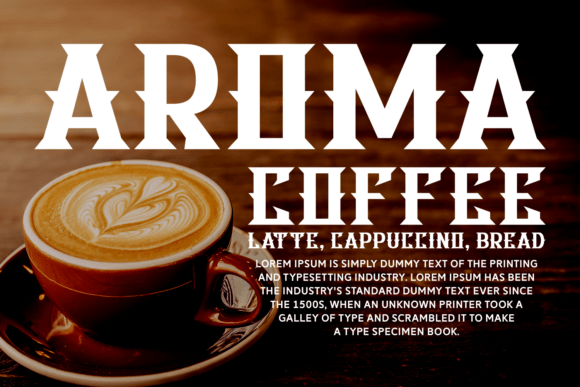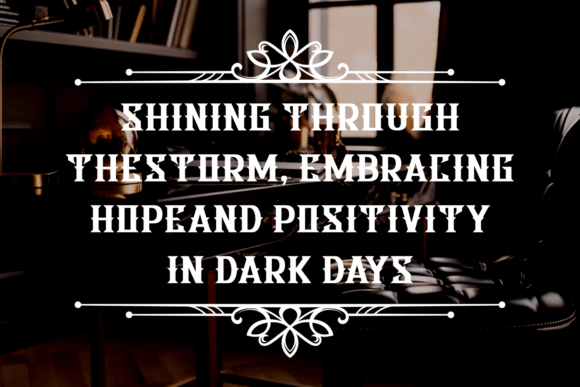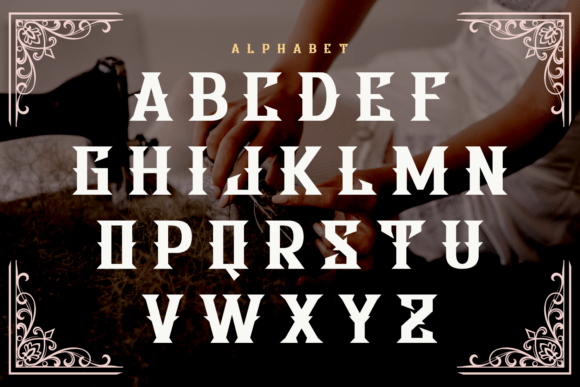
Introduction to Fabric Tailor Font
As designers, we’ve all been there – staring at a blank canvas, trying to bring our creative vision to life. But sometimes, all it takes is the right font to spark that initial spark of inspiration. For me, that font is Fabric Tailor Font – a strong and stylish blackletter font that exudes a bold vintage spirit.
With its sharp cuts, tailored edges, and ornamental details, Fabric Tailor Font is a design resource that combines craftsmanship with gothic flair. Whether you’re working on a creative project or simply looking for a high-quality font to elevate your design, Fabric Tailor Font is an excellent choice. And the best part? You can download it for free, making it a valuable addition to any designer’s toolkit.
Perfect for logos, apparel design, tattoo art, posters, and more, Fabric Tailor Font delivers a timeless blackletter aesthetic with a modern edge. And with its transparent background, it’s easy to integrate into any design project – from retro packaging to whiskey labels and barbershop branding.
Key Features of Fabric Tailor Font
- High-quality design: Fabric Tailor Font is designed to provide a premium look and feel for any creative project.
- Large character set: With a comprehensive character set, Fabric Tailor Font is perfect for designers working on projects that require a wide range of characters and symbols.
- Resolution-independent: Designed to be resolution-independent, ensuring that the font looks great at any resolution, from small mobile devices to large-scale prints.
- Perfect for fabric and textile designs: This font is specifically designed for fabric and textile designs, making it a great resource for fashion designers, textile artists, and crafters.
Honest Review: Fabric Tailor Font
I recently stumbled upon the Fabric Tailor Font, and I must say it’s been a game-changer for my creative projects. The font is a beautiful, high-quality addition to any design resource.
- ✨ The font’s elegant design makes it perfect for any creative project, from wedding invitations to product labels.
- ⚠️ The font may not be suitable for bold or dramatic designs, as its elegant style may get lost in more intricate compositions.
Overall, I’m thoroughly impressed with the Fabric Tailor Font. Its beauty, versatility, and ease of use make it a valuable addition to any designer’s toolkit. If you’re looking for a high-quality font for your next creative project, I highly recommend giving Fabric Tailor Font a try.
Fabric Tailor Font